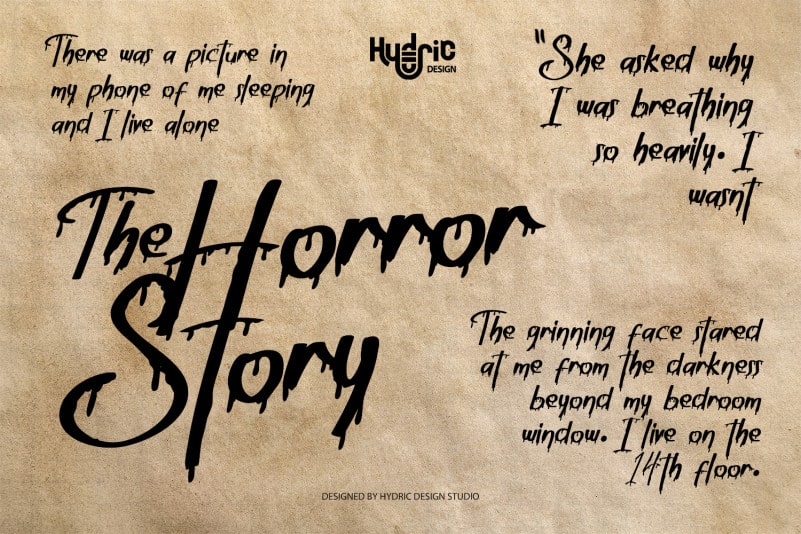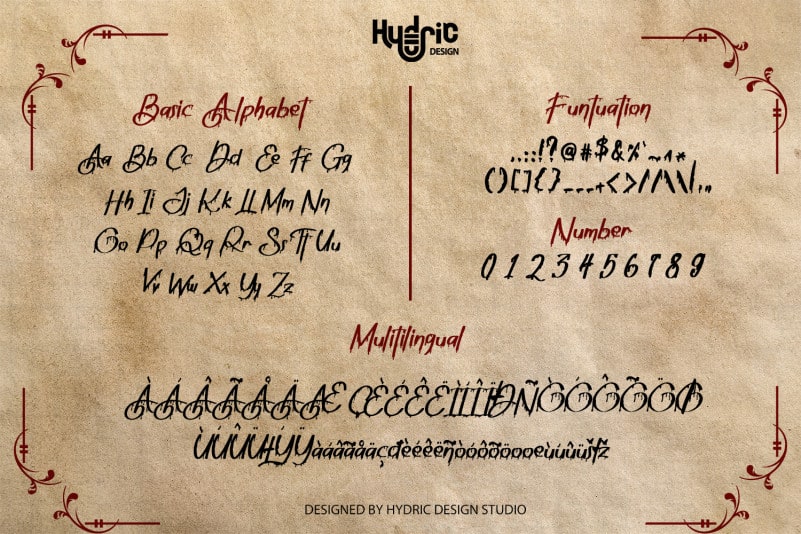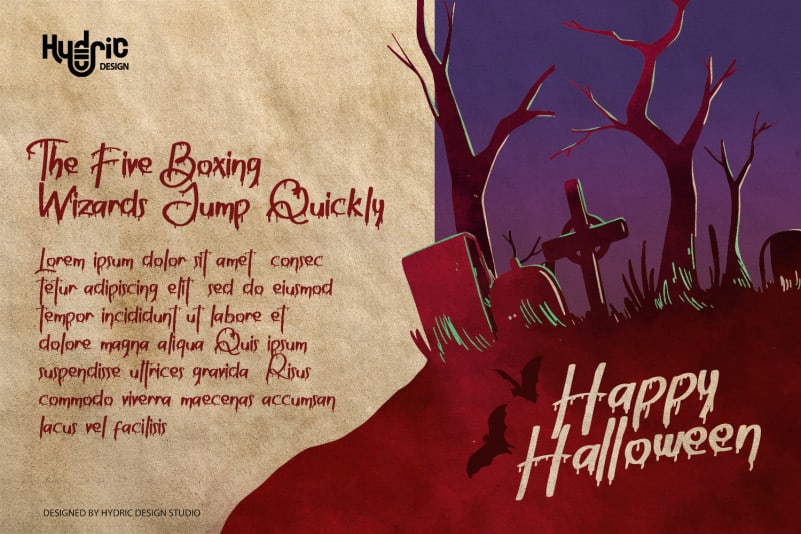
Suvillian Bloody Halloween Typeface
Suvillian Bloody Halloween Typeface is horror script font with a horror & Creepy feel, inspired by horror Story! offers you a scary and horror atmosphere to your design projects. Suitable for book/novel or movie title, logos & branding, social media posts, advertisements & product designs, etc.